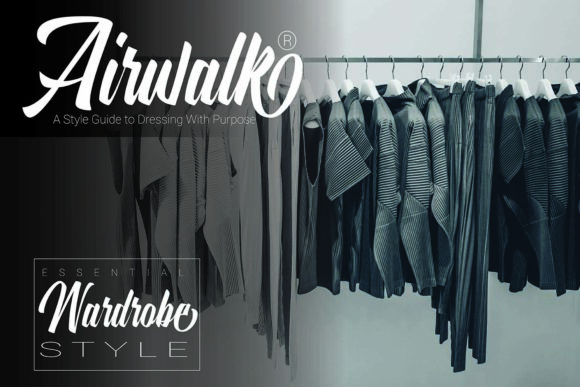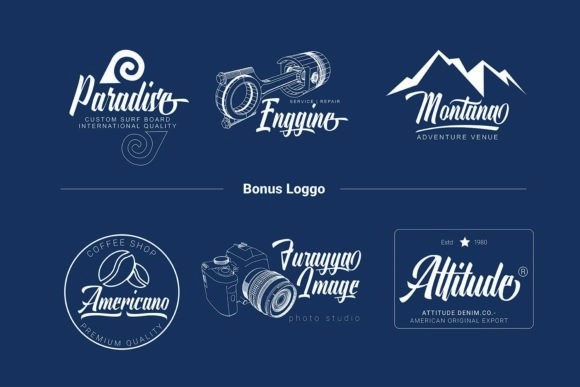
Onthel Font
db-ku.com - Script & Handwritten -- The Onthel is a bold-script with a touch of rhythmic brush that is very charming and has character. It was inspired by Onthel Bicycles, this is a Dutch design bicycle that is characterized by an upright sitting position and has a very strong and high-quality reputation.